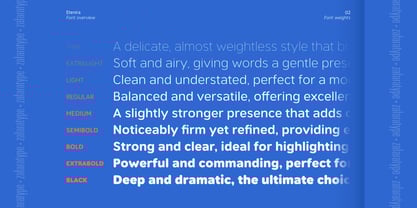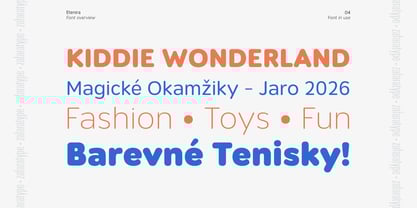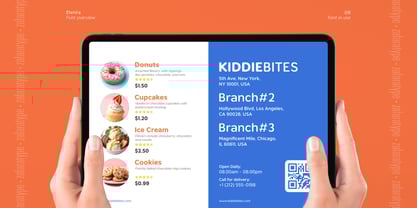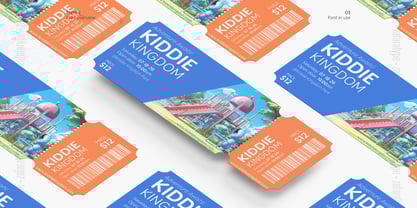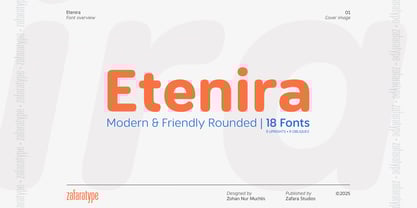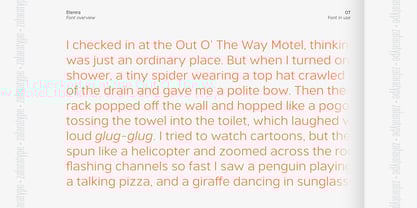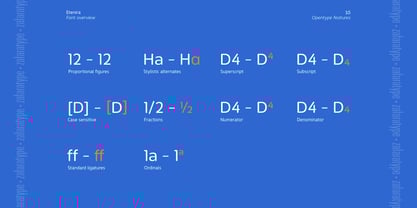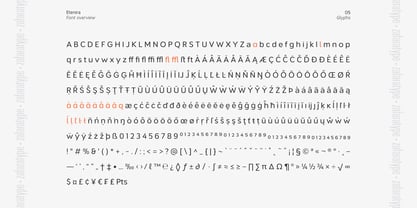
Etenira
The Etenira Font Family was designed by Zohan Nur Muchlis and published by Zafara Studios. Etenira contains 18 styles and family package options. More about this family
Etenira is a Modern & Friendly Rounded font family that blends soft curves with balanced proportions, bringing warmth and friendliness to any project. With its clean, contemporary style, it offers versatility for branding, packaging, editorial design, web interfaces, and beyond.
Key Features:
- 18 styles: 9 uprights (Thin to Black) and 9 matching obliques
- 473 glyphs with extended Latin coverage
- Includes uppercase & lowercase, punctuation & math symbols, case-sensitive forms, standard ligatures, localized forms, ordinals, fractions, subscript & superscript, and historical forms
- Supports 36 languages, including Afrikaans, Albanian, Catalan, Croatian, Czech, Danish, Dutch, English, Finnish, French, German, Hungarian, Indonesian, Italian, Malay, Norwegian Bokmål, Polish, Portuguese, Spanish, Swedish, Turkish, Zulu, and more
Etenira is more than just a font; it’s a tool for creating designs that are not only beautiful but also resonate with a sense of comfort and sincerity. Its extensive weight system and broad language support make it a reliable and essential addition to any designer’s toolkit.